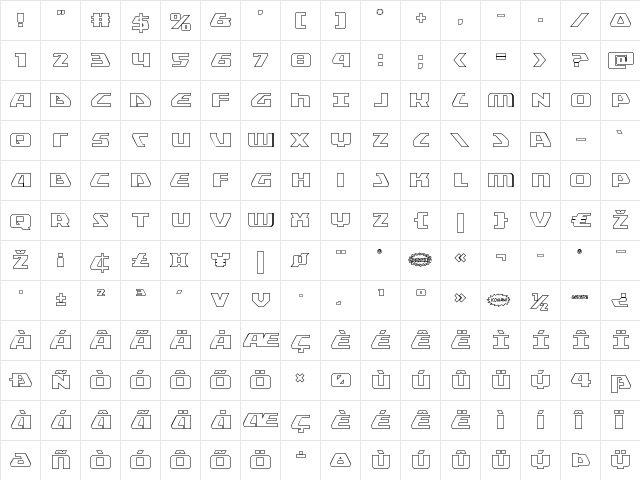
Global Dynamics Outline Regular
Design Context for Global Dynamics Outline Typeface
Global Dynamics Outline brings ornamental detail and strong personality to headlines and identities, where visual impact matters more than quiet functionality.
Font Pairing: Pair with a clean neutral sans-serif for body copy to let Global Dynamics Outline's character lead without overwhelming the composition.
Pro Tip: Use Global Dynamics Outline exclusively at display sizes — it was designed to be seen, not read at length. Let a neutral companion handle body copy.